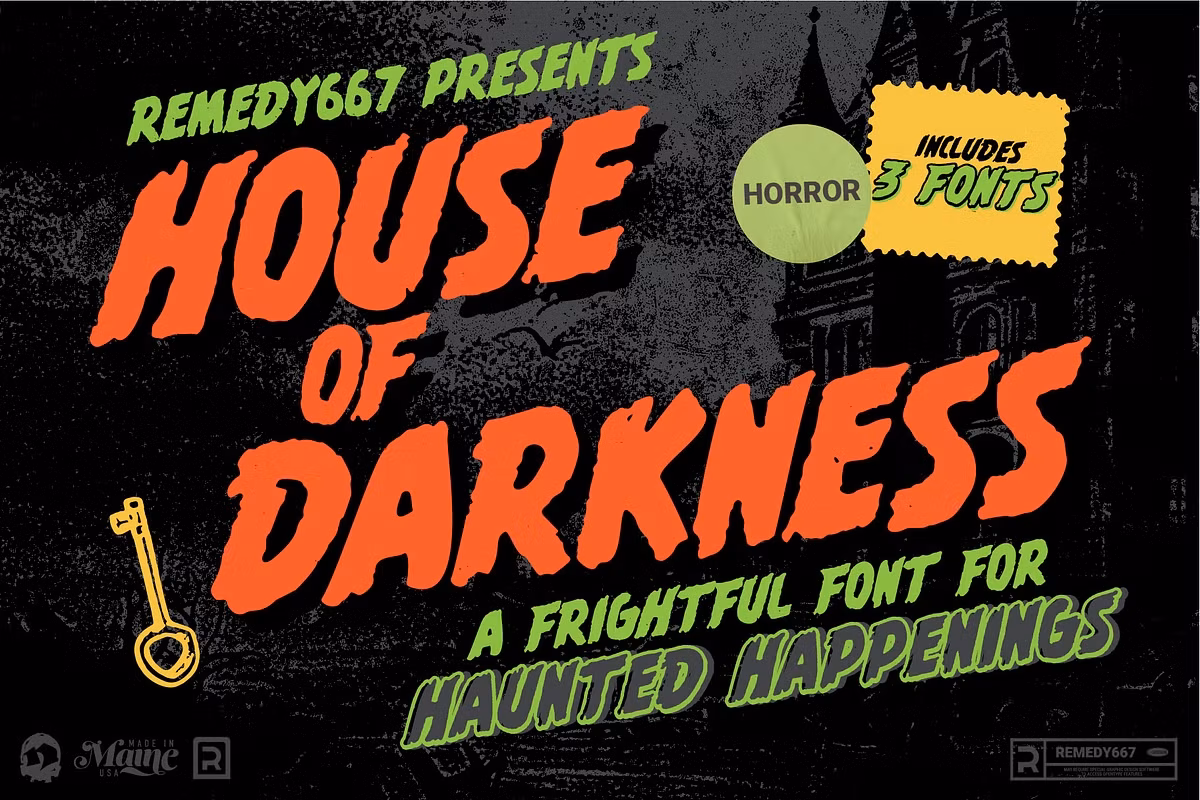
The House of Darkness - Horror Font Pack Free Download is a chilling and dramatic typeface bundle designed to bring a dark, eerie vibe to your designs. With its jagged edges, distressed lettering, and spooky aesthetic, this font pack is perfect for creating horror-themed posters, book covers, movie titles, and more. Whether you're designing for a Halloween event, a horror film, or a spooky brand, House of Darkness brings a spine-tingling touch to your projects.
House of Darkness - Horror Font Pack Free Download is ideal for designers looking to create designs with a terrifying, dark edge. Perfect for horror-related branding, promotional materials, and digital content, this font pack will bring your spooky creations to life. Download it today and infuse your designs with a touch of horror!